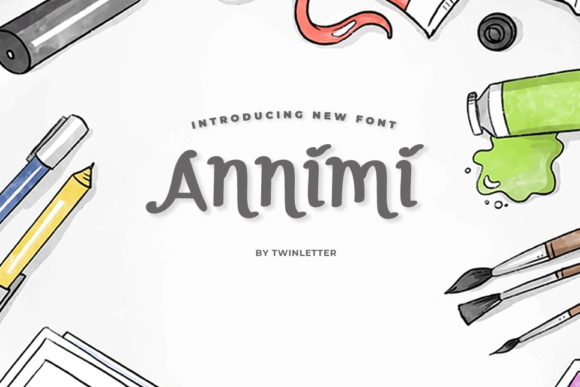
Meet Your New Favorite Font: Annimi
Remember that moment when you stumbled upon a font that just clicked? The one that made your design pop and brought a smile to your face? For designers, finding that perfect font is like hitting the jackpot. And, trust us, Annimi Font is about to become your new go-to. This bouncy handwritten font is the result of careful craftsmanship, designed to capture the essence of a handwritten note.
With its casual charm, Annimi Font is the perfect addition to any project. Whether you’re working on a busy background or need a standalone headline, this font is sure to shine. Its readability and versatility make it an invaluable asset for designers. Say goodbye to font fatigue and hello to Annimi Font – your new design BFF.
Annimi Font Key Features
- Unique Characteristics: Annimi Font features a unique blend of modern and vintage elements, with intricate details and subtle nuances that set it apart from other fonts.
Designer Review: Annimi Font
First off, I love the bold and unique style of Annimi Font ✨. The combination of geometric shapes and organic elements creates a visually striking design that’s sure to turn heads. The font is perfect for making a statement in headlines and titles, and its versatility makes it suitable for a wide range of applications, from branding to editorial design.
- Unique aesthetic that’s both modern and timeless ✨
- High-quality rendering that looks great in various sizes and resolutions
- Wide range of applications, from branding to editorial design
However, I do have some concerns about the limited font sizes that are suitable for body text ⚠️. While the font is perfect for headlines, it can be challenging to read in smaller sizes, which might limit its use in certain contexts. Additionally, some users might find the font’s boldness overwhelming, especially in long blocks of text.
Overall, I think Annimi Font is a great addition to any designer’s toolkit. Its unique style and high-quality rendering make it a great choice for projects that require a bold and eye-catching design. However, it’s essential to be mindful of its limitations and use it judiciously to avoid overwhelming the reader.